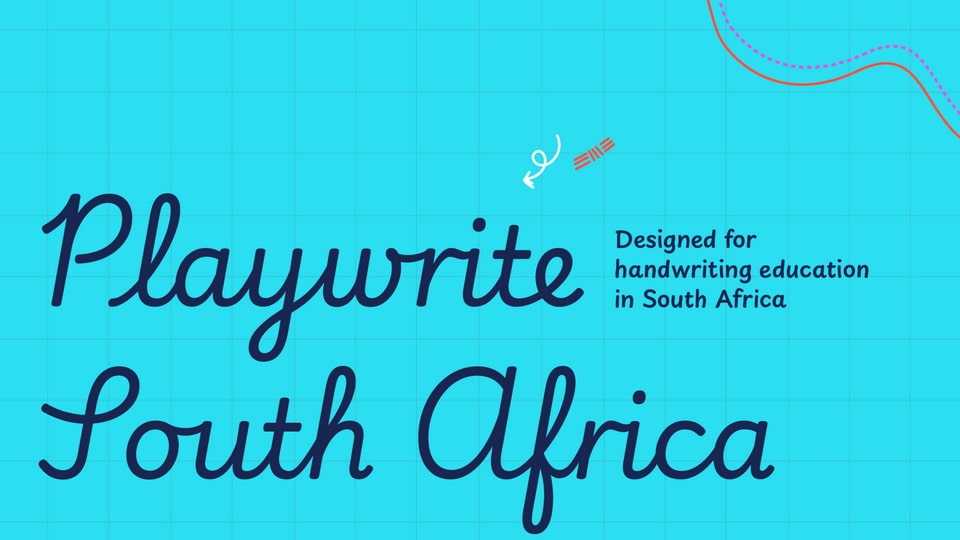
Download Playwrite font, a typeface that allows the creation of primary school cursive fonts. This continuous cursive features a gentle slope and a relatively slow pace of construction.
Designer: TypeTogether